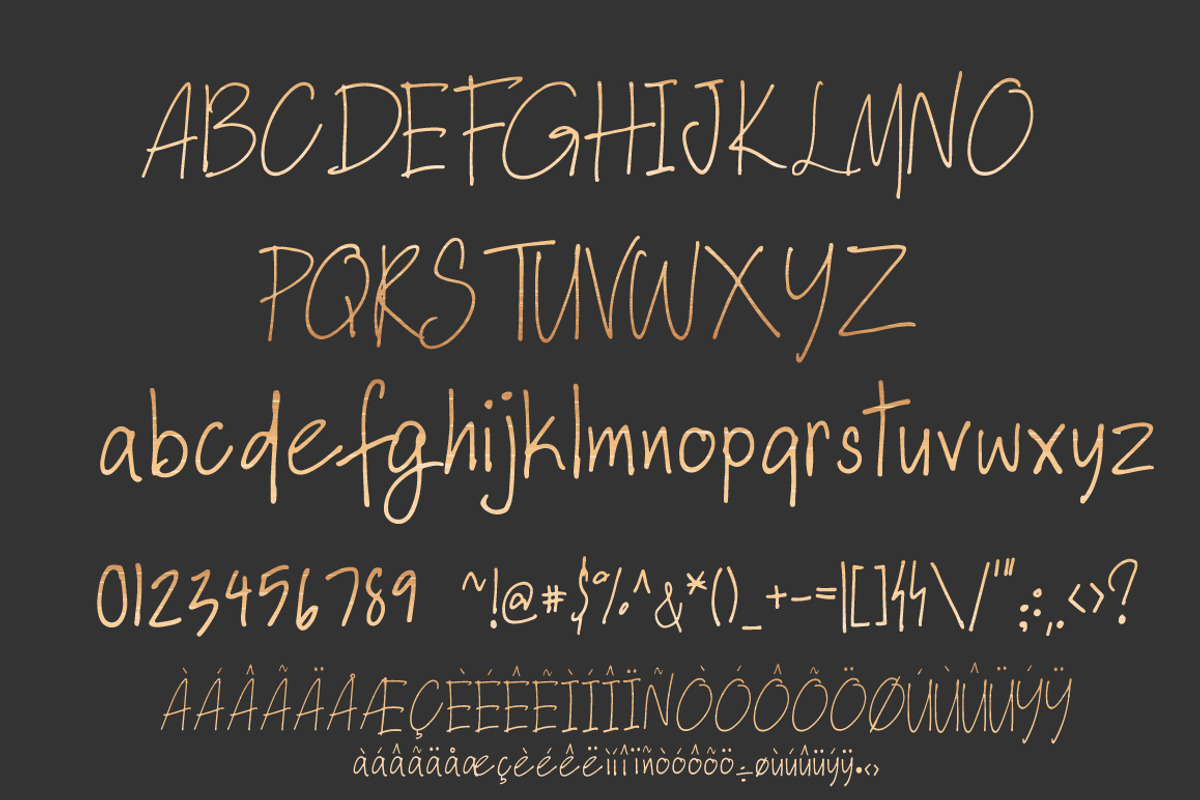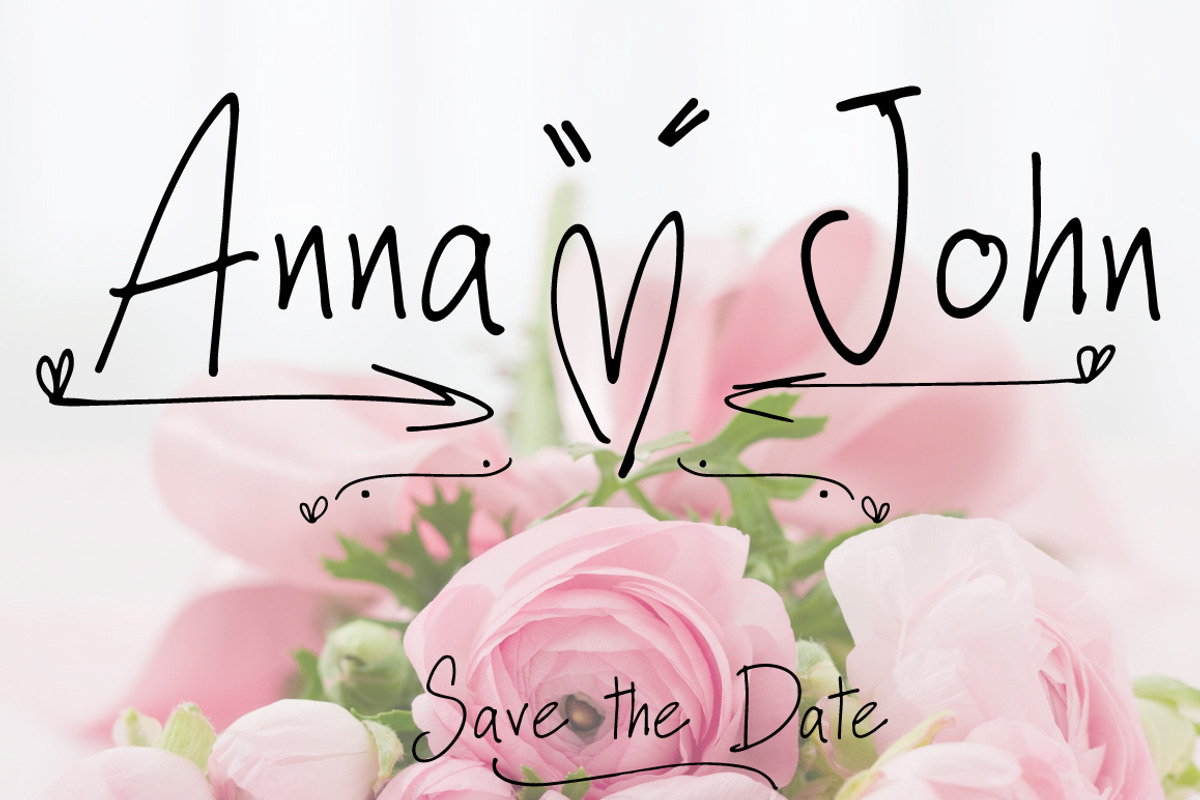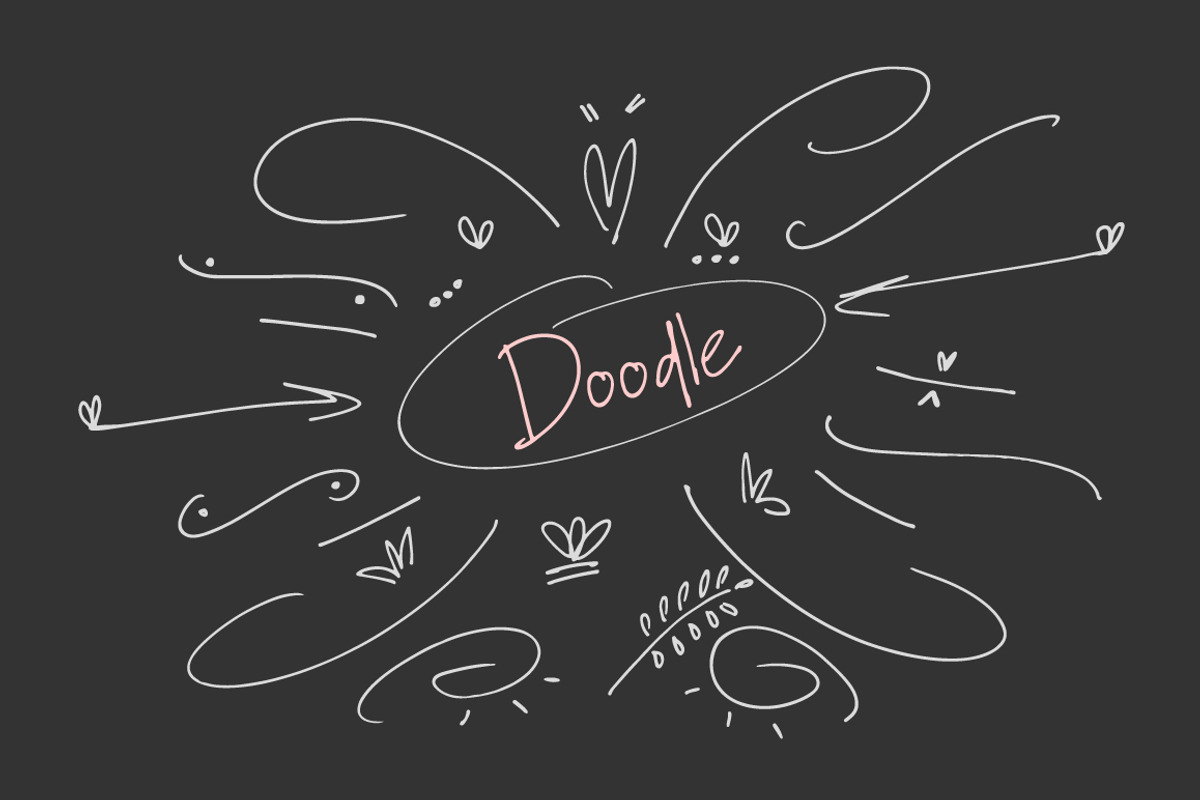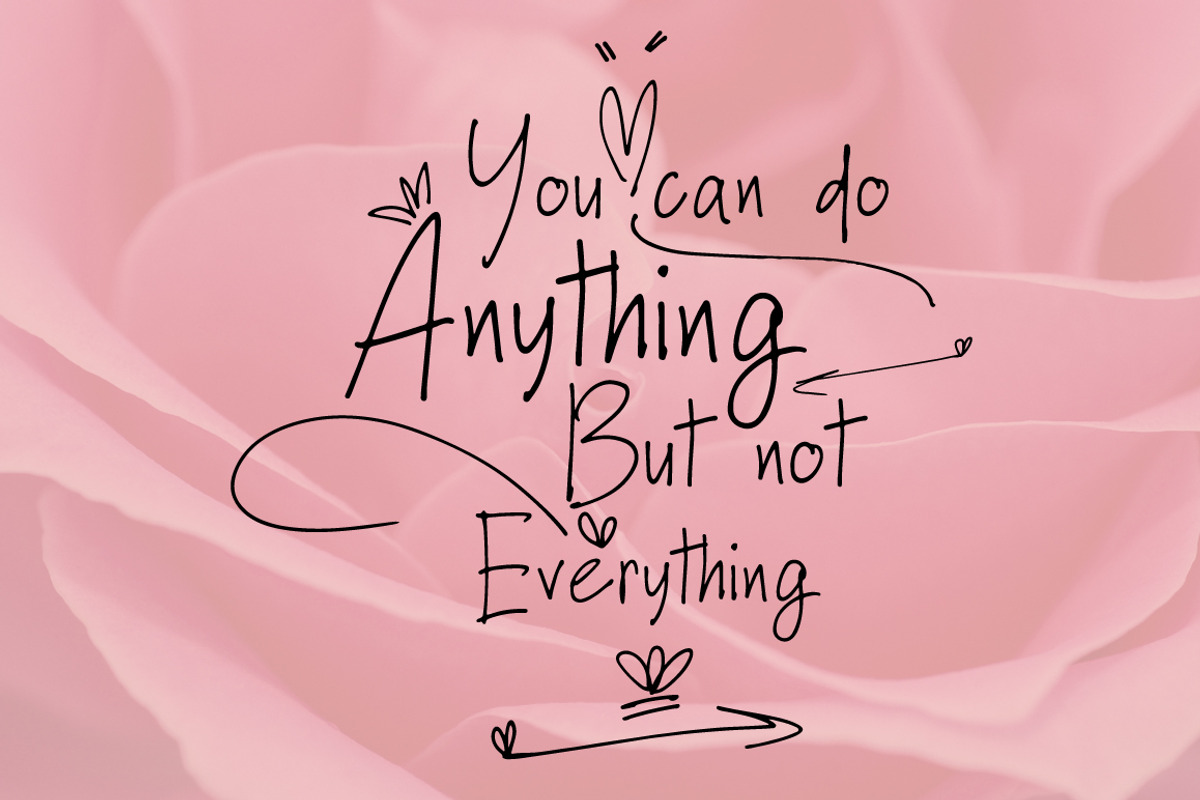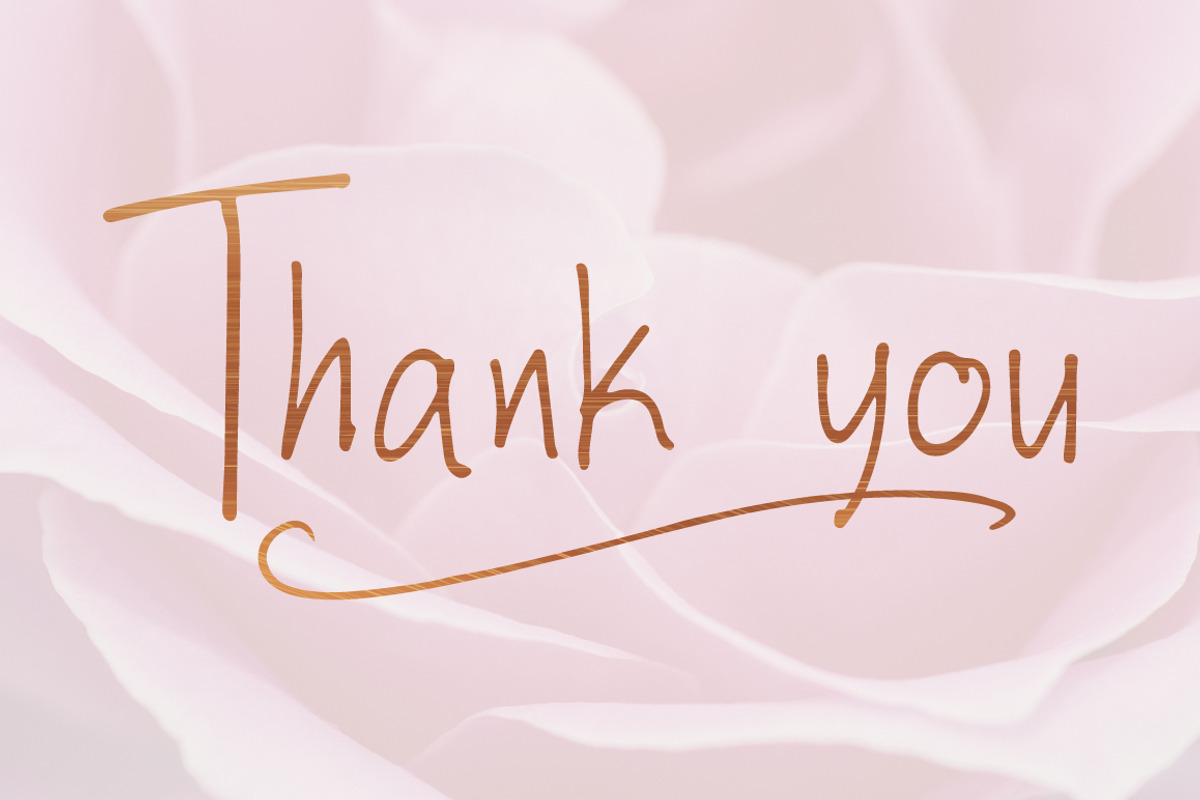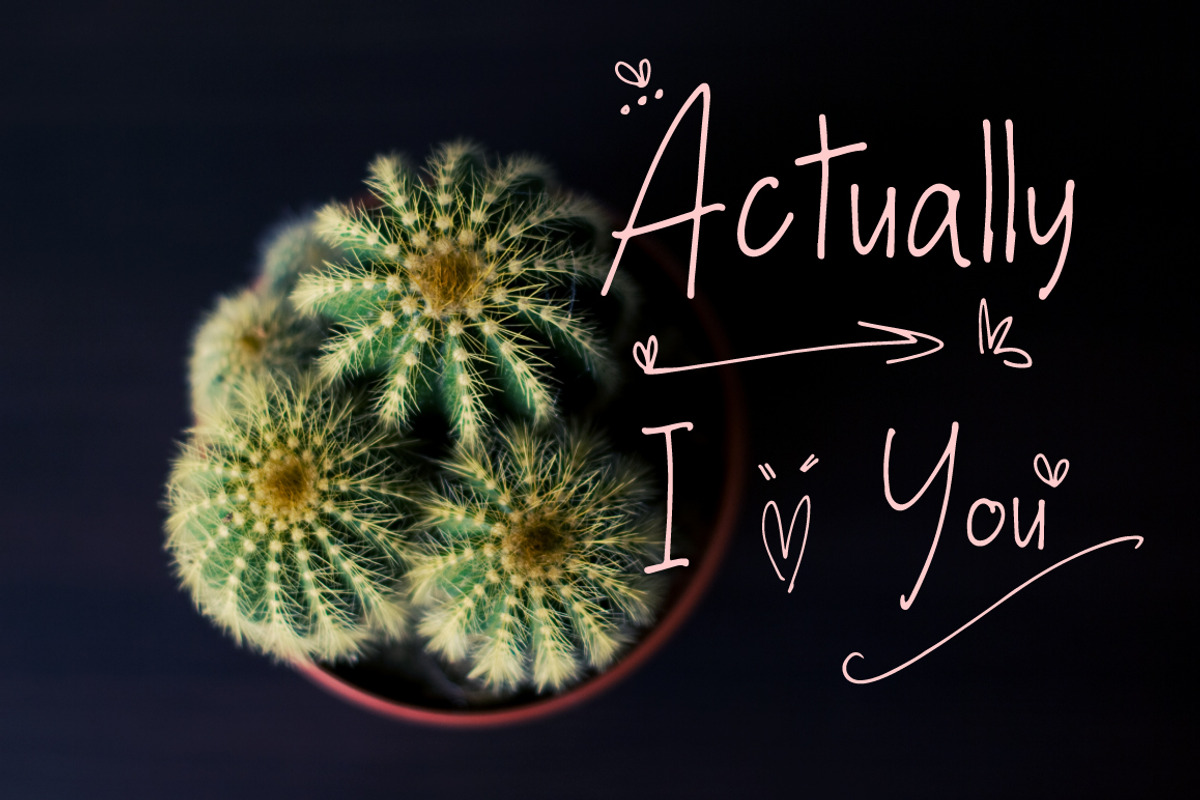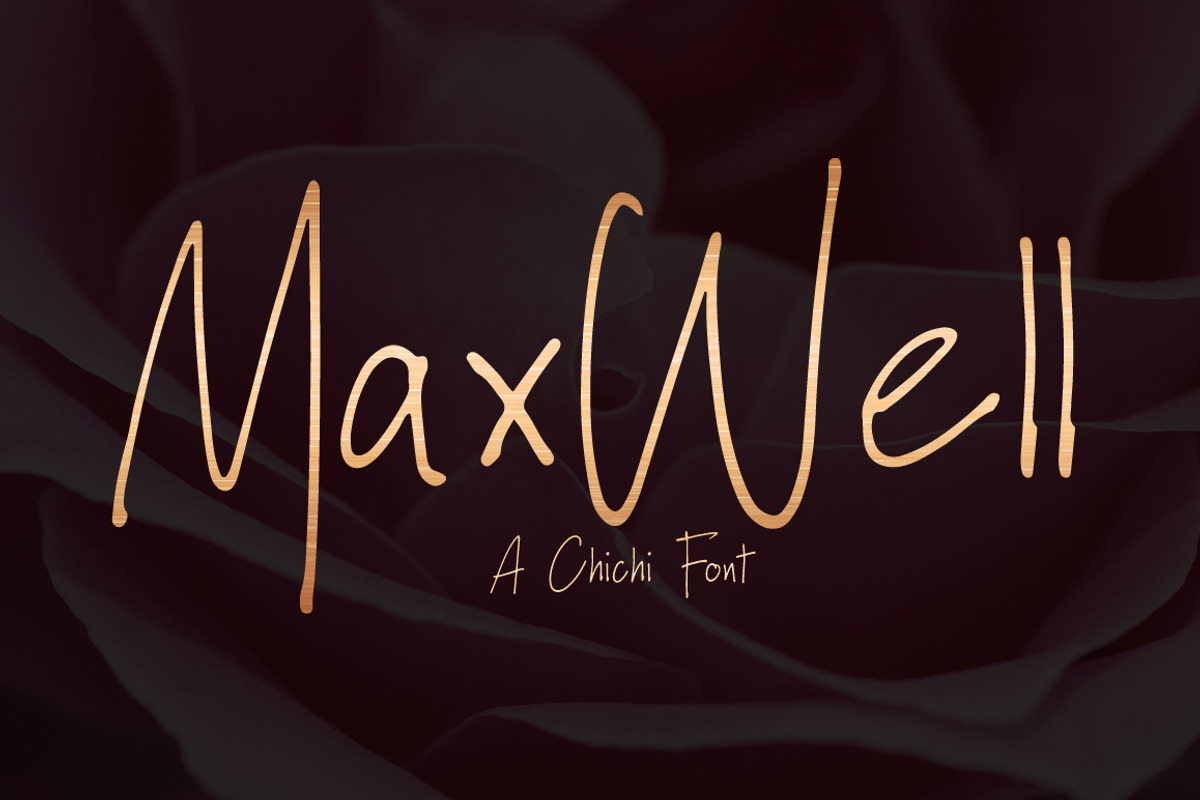
Maxwell | Handwritten Font
It's handwritten script font.
This font are perfect for wedding invitation or your blog. Also with their help, you can create a logo or beautiful frame for your home. Or just use for your small business, book covers, stationery and more.
- Maxwell Regular
- Maxwell Doodle